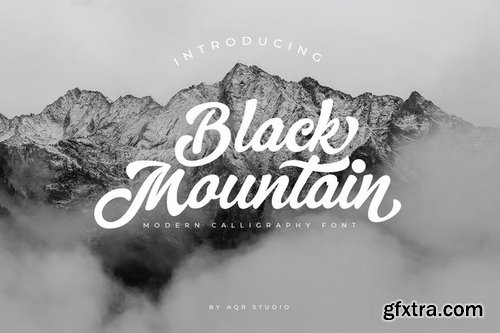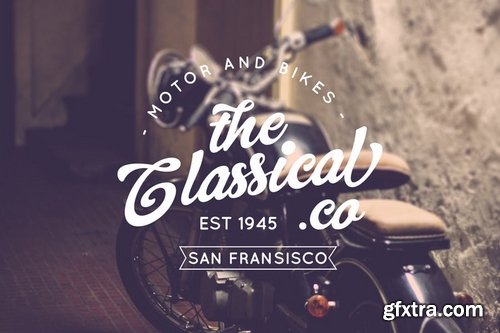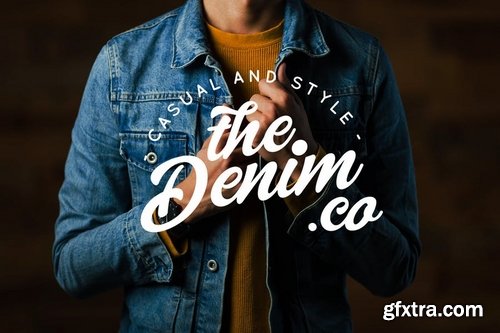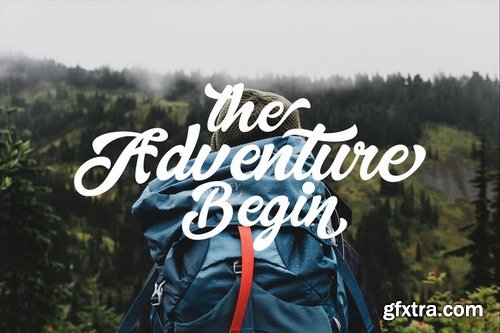
Black Mountain Font is a manual lettering with type Bold font, Black Mountain Font a great for any product and bussines. Black Mountain Font comfortable for vintage design, classic design, photography, branding design, T-Shirt, Outdoor, Packaging and many more.